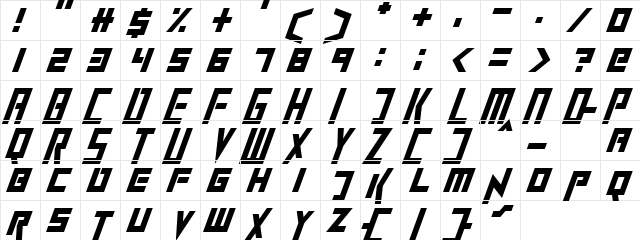
ExtinctionEvent Italic
| Designer | Darrell Flood |
Design Context for ExtinctionEvent Typeface
ExtinctionEvent is a composed and adaptable typeface that performs quietly and consistently across a wide range of design contexts. The slanted form adds forward momentum and visual energy.
Pro Tip: Use ExtinctionEvent for emphasis, pull quotes, and subheadings where its slanted energy can add rhythm to the layout.